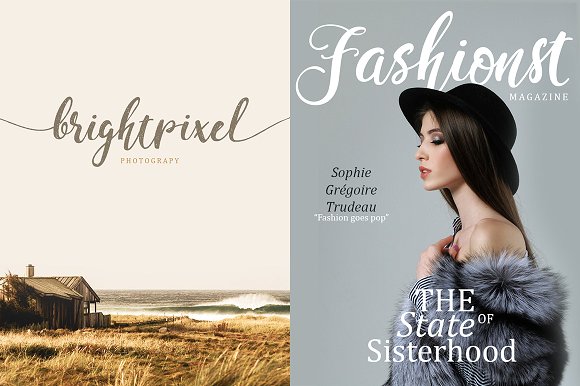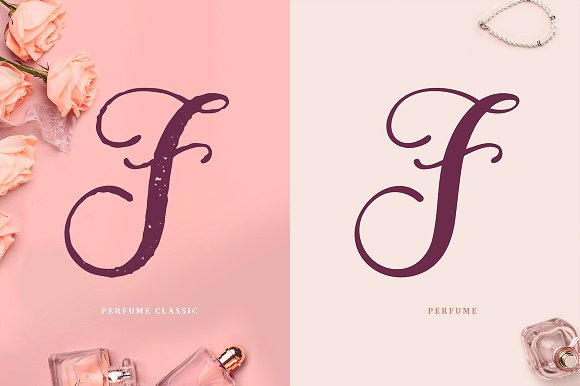
Perfume Font
db-ku.com - Script & Handwritten -- Perfume is a stunning handwriting font that comes in 2 versions: Regular & Classic. Both versions also come with an italic version.